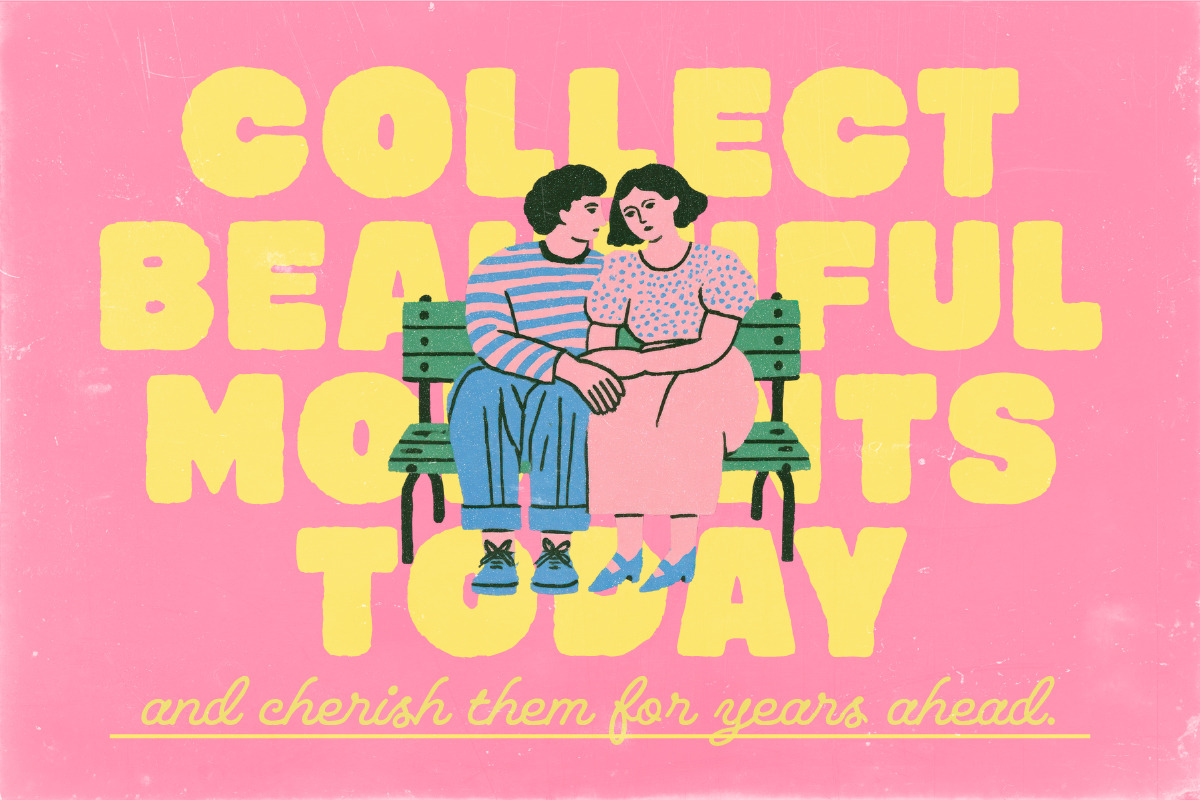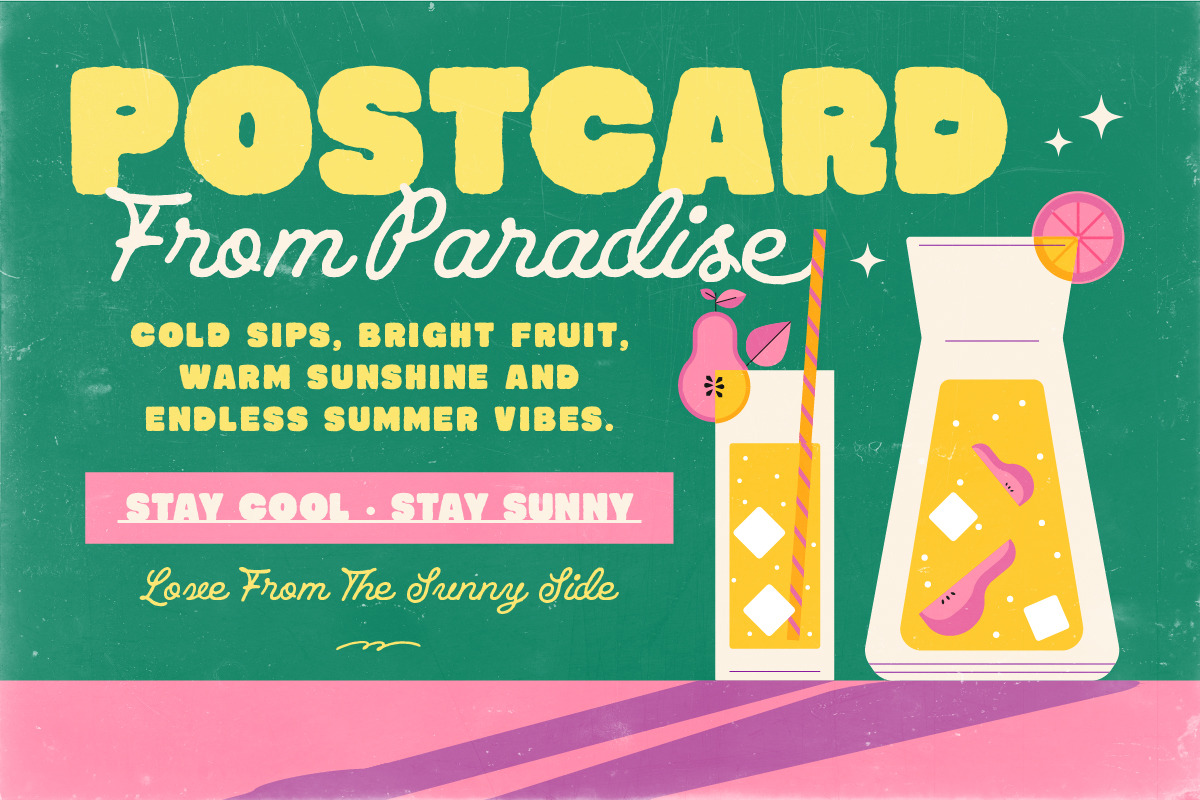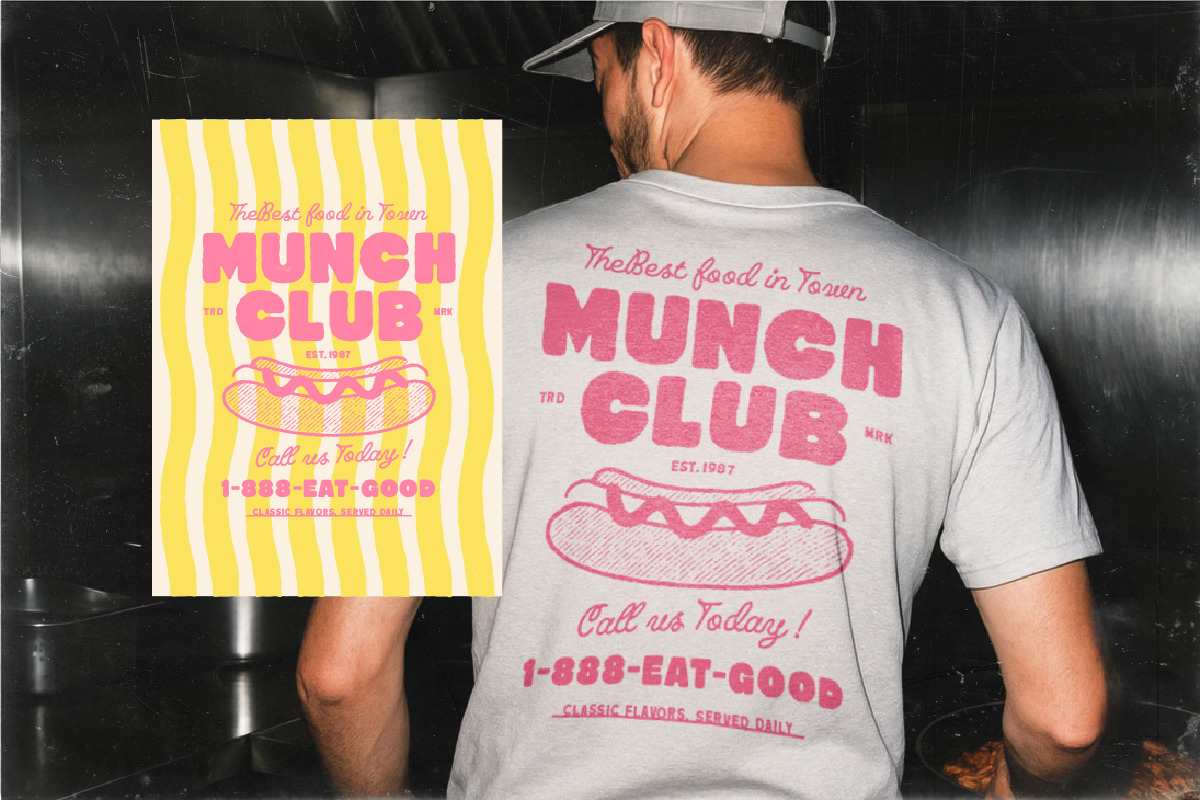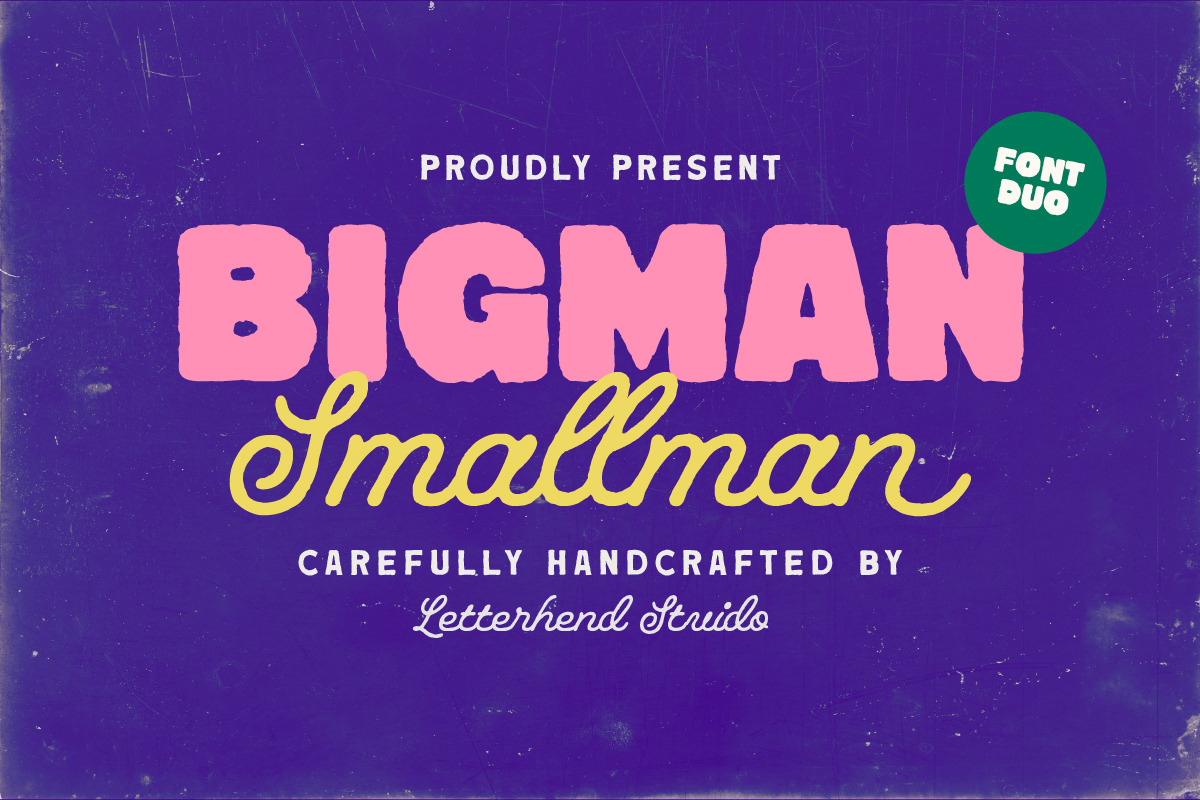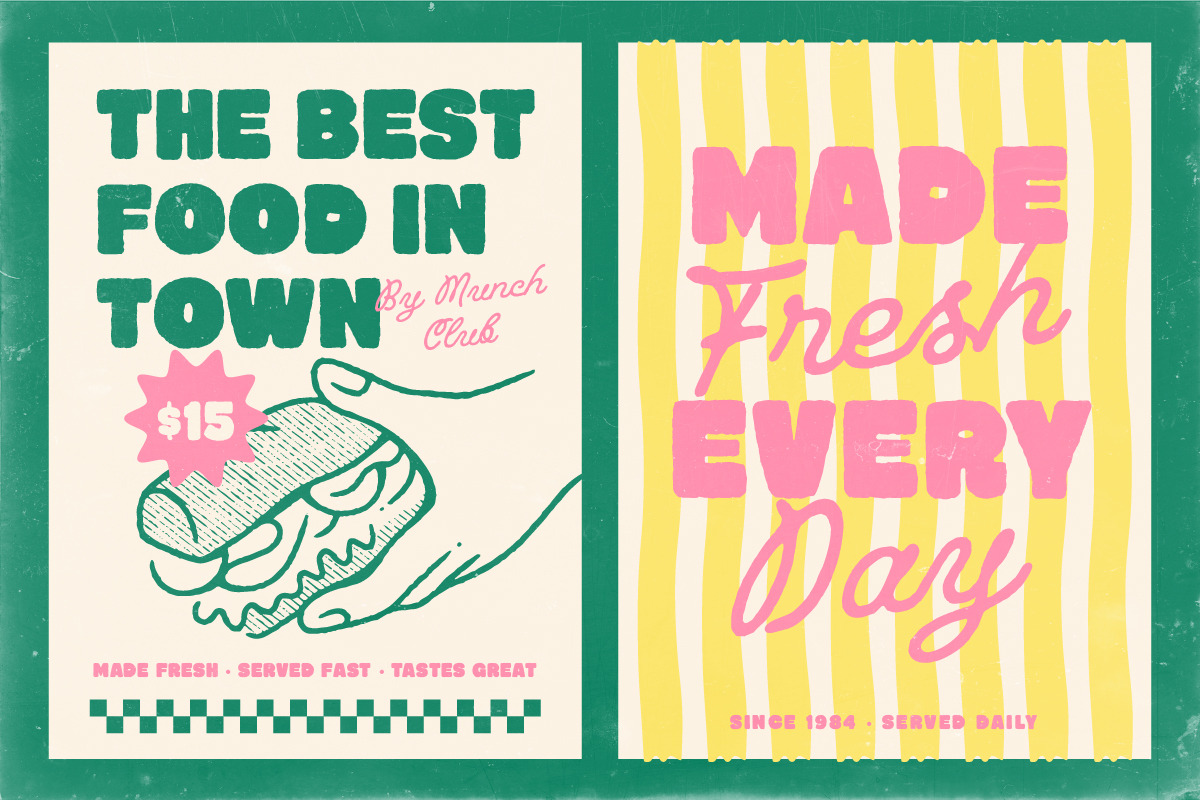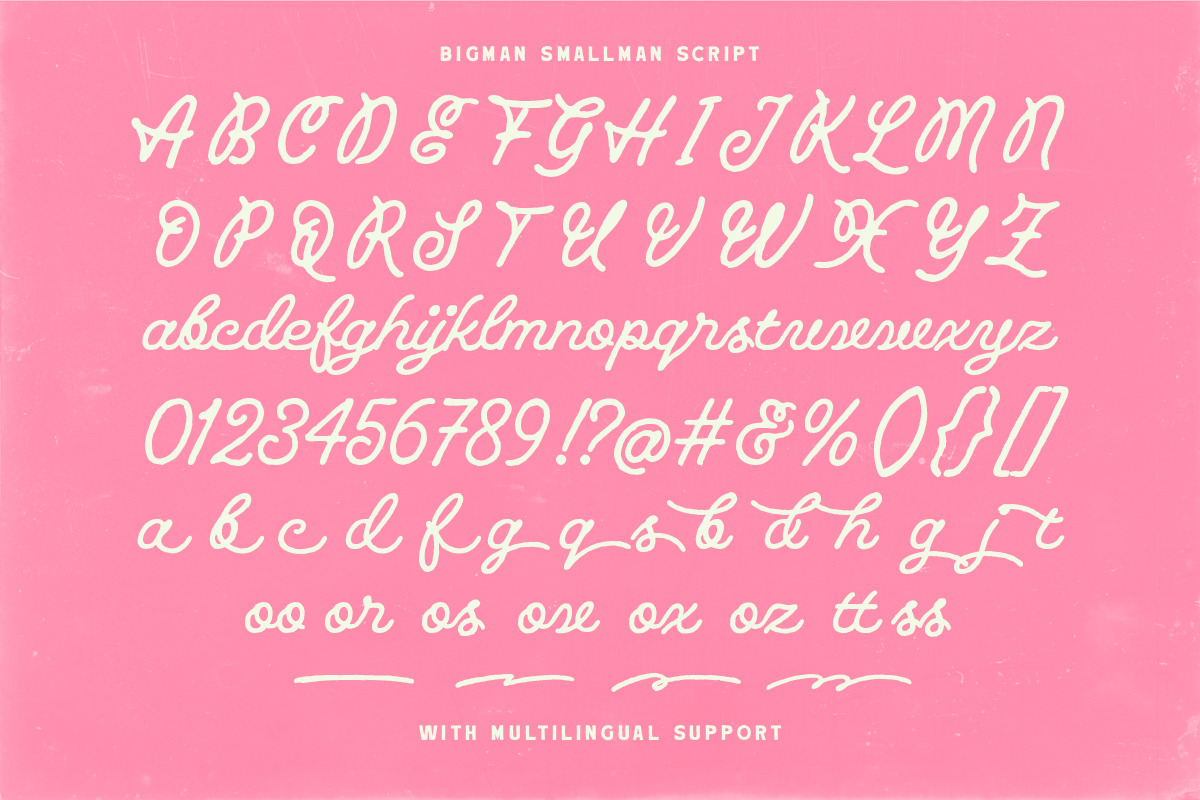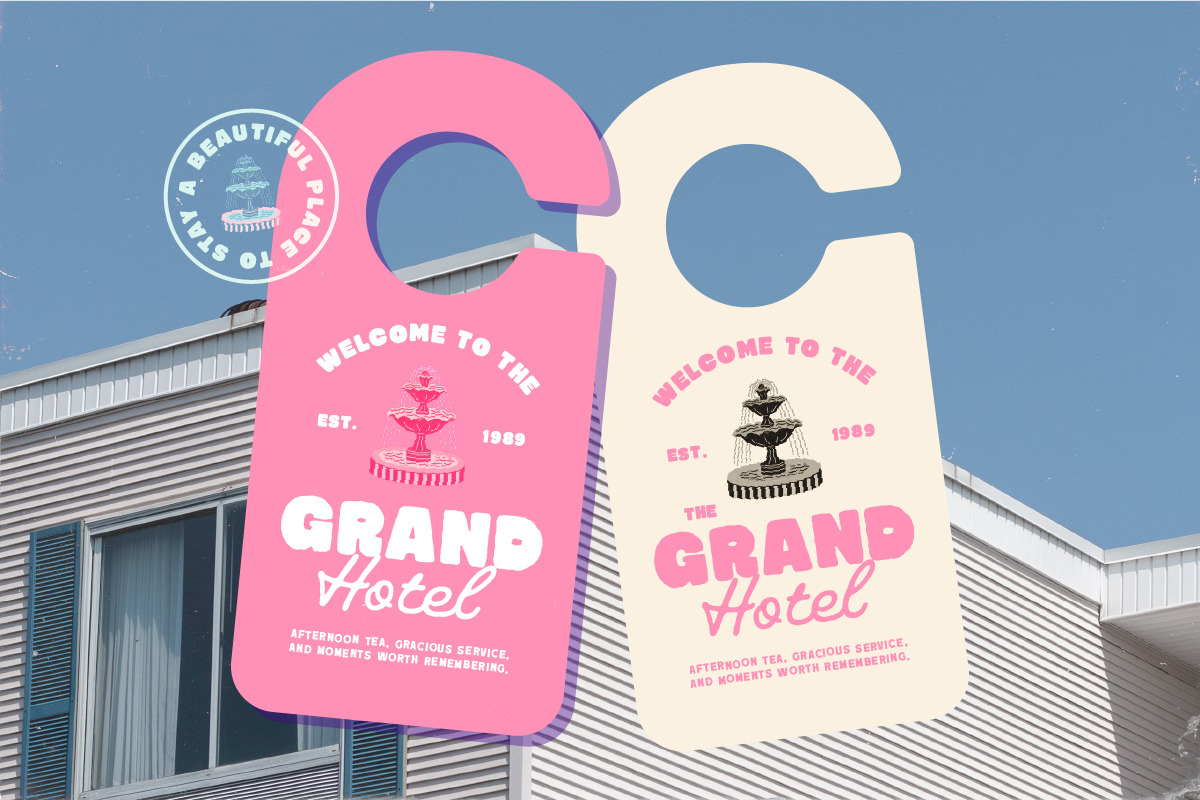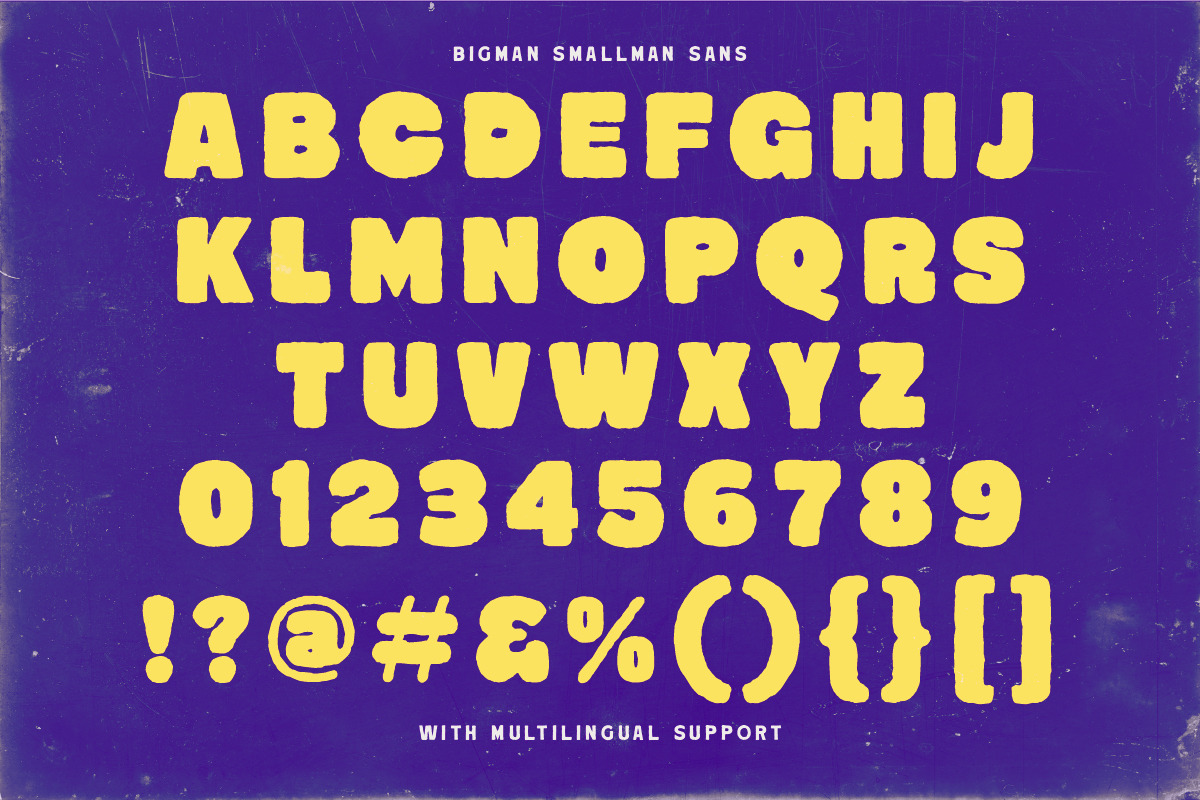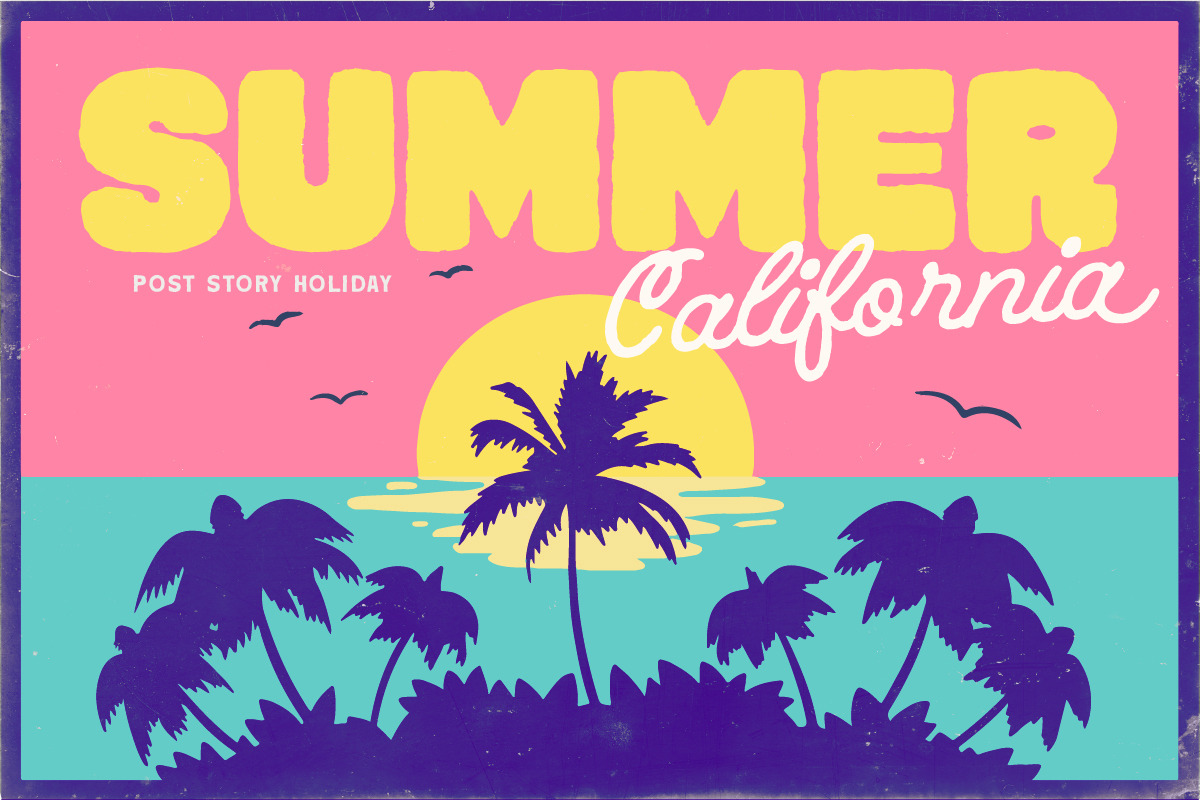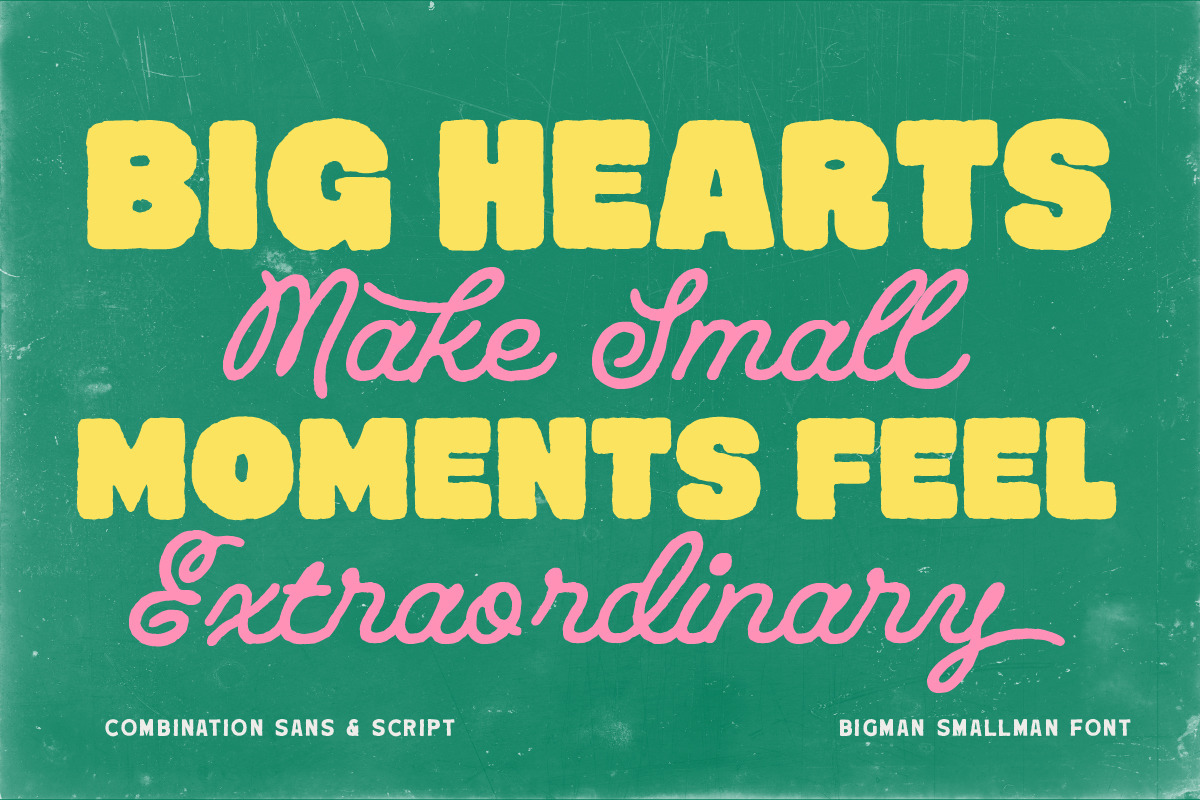
Bigman Smallman Funky Retro Font Duo
Bigman Smallman packs a lively retro punch with two contrasting personalities that know how to work together. The bold display style comes with chunky, slightly irregular letterforms and a wonderfully rough poster character, while the flowing script adds a loose handwritten rhythm that softens the heavier shapes.
Uppercase & lowercase
Numbers and punctuation
Alternates & Ligatures